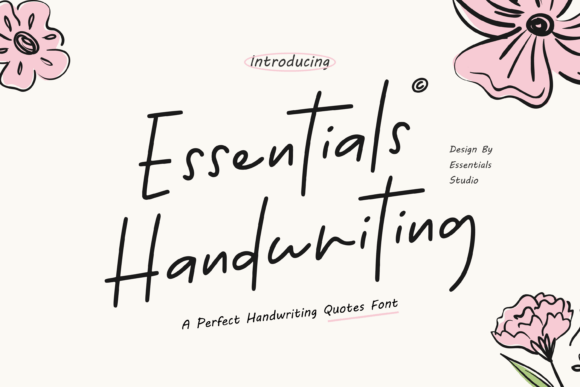
Introducing “Essentials Handwriting” – The Ultimate Font for Creative Expression
In the world of design, fonts play a crucial role in conveying messages, evoking emotions, and creating a lasting impression. For designers, writers, and creatives, finding the perfect font can be a daunting task. However, Essentials Studio has made it easier with the introduction of “Essentials Handwriting” – a sleek, versatile font that is perfect for a wide range of creative needs.
The Birth of “Essentials Handwriting”
Essentials Studio, a renowned design firm, has always been at the forefront of innovation. With a passion for creating unique and functional designs, they have developed “Essentials Handwriting” – a font that embodies the perfect blend of style, elegance, and versatility. This meticulously crafted font is designed to cater to the diverse needs of designers, writers, and creatives.
What Makes “Essentials Handwriting” Stand Out?
“Essentials Handwriting” is more than just a font – it’s an experience. Its sleek and modern design makes it perfect for a wide range of applications, from captivating quote designs to stylish birthday layouts, craftig, invitations, books, planners, and more. The font’s unique aesthetics will enable you to bring your vision to life, adding a touch of sophistication and elegance to your design projects.
Key Features of “Essentials Handwriting”
So, what makes “Essentials Handwriting” the ultimate font for creative expression? Here are some of its key features:
- Versatility: “Essentials Handwriting” is a versatile font that can be used for a wide range of creative needs, from digital designs to print materials.
- Sleek Design: The font’s sleek and modern design makes it perfect for creating visually appealing designs.
- Elegance: “Essentials Handwriting” exudes elegance, making it perfect for designs that require a touch of sophistication.
- Easy to Read: The font is easy to read, making it perfect for body text, headings, and titles.
Use Cases for “Essentials Handwriting”
The possibilities are endless with “Essentials Handwriting”. Here are some use cases to get you started:
- Quote Designs: Create captivating quote designs that inspire and motivate.
- Birthday Layouts: Design stylish birthday layouts that make your loved ones feel special.
- Crafting: Add a touch of elegance to your crafting projects, such as planners, journals, and more.
- Invitations: Create beautiful invitations for weddings, parties, and other events.
- Books and Planners: Use “Essentials Handwriting” to create visually appealing books and planners.
Why Choose “Essentials Handwriting”?
With so many fonts available, why choose “Essentials Handwriting”? Here are some reasons to consider:
- Unique Aesthetics: “Essentials Handwriting” offers a unique aesthetic that will set your designs apart.
- High-Quality Design: The font is meticulously crafted, ensuring high-quality design that will impress.
- Versatility: The font’s versatility makes it perfect for a wide range of creative needs.
- Ease of Use: “Essentials Handwriting” is easy to use, making it perfect for designers of all levels.
Tips for Using “Essentials Handwriting”
To get the most out of “Essentials Handwriting”, here are some tips to keep in mind:
- Experiment with Different Sizes: Experiment with different font sizes to create visual hierarchy.
- Combine with Other Fonts: Combine “Essentials Handwriting” with other fonts to create a unique look.
- Use for Headings and Titles: Use the font for headings and titles to create a lasting impression.
- Pay Attention to Kerning: Pay attention to kerning to ensure the font looks its best.
In conclusion, “Essentials Handwriting” is a game-changing font that is perfect for designers, writers, and creatives. Its sleek design, versatility, and elegance make it perfect for a wide range of creative needs. Whether you’re creating quote designs, birthday layouts, craftig, invitations, books, or planners, “Essentials Handwriting” is the ultimate font for creative expression.